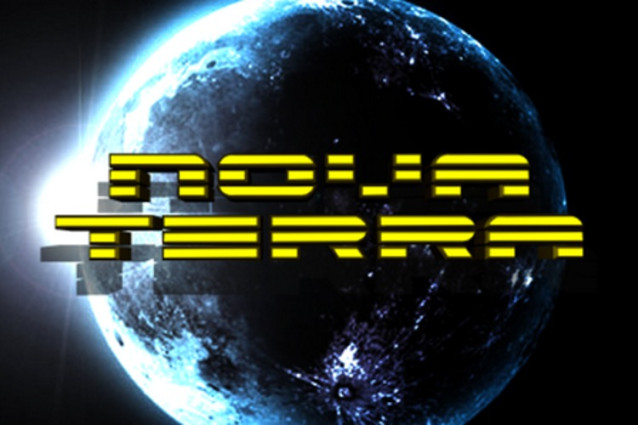
Nova Terra Font
Nova Terra Font is a sci-fi logo font with two verticsl lines cutting through the characters for a real futuristic flare to the typeface. It’s a wide font, but there are a number of more condensed versions among the font family’s ssprawling 28 variations. Many of the letters have alternate forms between the upper and lower cases. Each version also includes an extended Latin character set, including accents and the Euro. Both OTF and TTF are included.